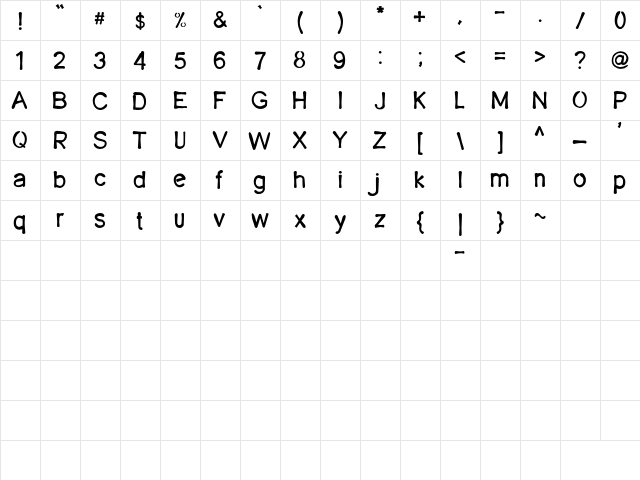
Tanjung Priuk Regular
| Designer | Hindro cholis |
Design Context for Tanjung Priuk Typeface
Tanjung Priuk is a composed and adaptable typeface that performs quietly and consistently across a wide range of design contexts.